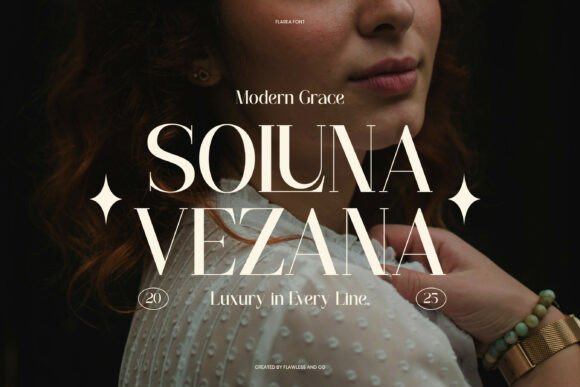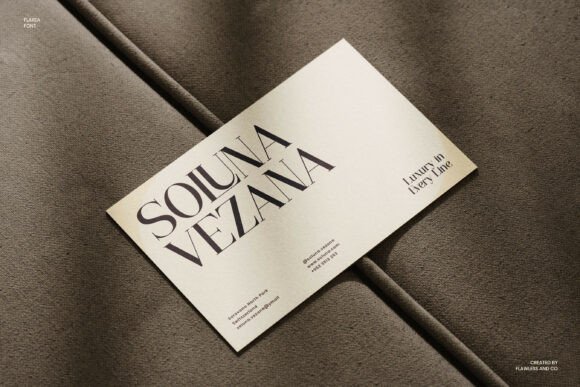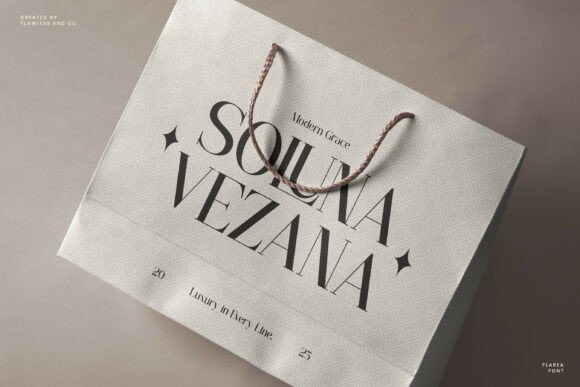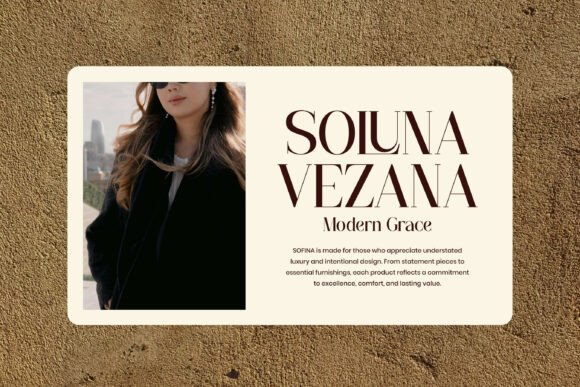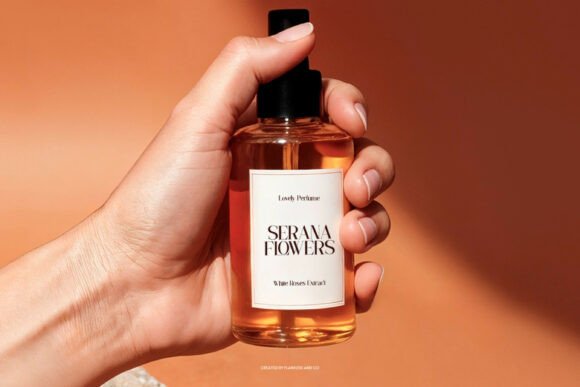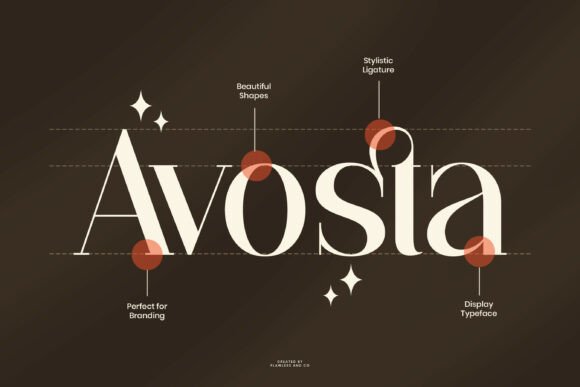
Introducing Flarea Font: The Epitome of Timeless Elegance
In the realm of typography, few fonts manage to capture the essence of sophistication and charm as effortlessly as Flarea. This beautiful serif font is meticulously crafted with graceful proportions and a timeless elegance that instantly elevates any design. Whether you’re working on a premium project or an artistic endeavor, Flarea is the perfect choice for those seeking to infuse their work with a luxurious and warm feel.
The Design Philosophy Behind Flarea
Flarea’s design is rooted in the principles of classic typography, with a modern twist that makes it distinctly contemporary. The font features smooth contrasts, refined curves, and classic letterforms that work in harmony to create a visually striking and highly readable typeface. The balanced structure of Flarea ensures that it remains elegant and refined, even at smaller sizes, making it incredibly versatile for a wide range of applications.
Key Features of Flarea Font
- Smooth Contrasts: The subtle transitions between thick and thin strokes in Flarea create a sense of fluidity and grace, adding to its luxurious appeal.
- Refined Curves: Every curve and contour in Flarea is carefully crafted to contribute to its overall sense of elegance and sophistication.
- Classic Letterforms: Drawing inspiration from traditional serif fonts, Flarea’s letterforms are both familiar and timeless, ensuring that your designs will stand the test of time.
- Balanced Structure: The even balance of Flarea’s design elements ensures that it is as easy to read as it is beautiful to look at, making it perfect for body text and headlines alike.
Applications of Flarea Font
Flarea’s versatility makes it suitable for a wide range of design projects. Here are some of the best applications for this stunning serif font:
- Branding and Logo Design: Use Flarea to create a lasting impression with your brand identity. Its elegant and sophisticated design makes it perfect for luxury brands and high-end products.
- Print Design: Whether you’re working on a magazine, brochure, or book, Flarea brings a touch of class and sophistication to your print materials.
- Digital Media: From website headers to social media graphics, Flarea’s clean and readable design ensures that your message is conveyed with style and elegance.
- Packaging Design: Add a touch of luxury to your product packaging with Flarea. Its timeless appeal ensures that your designs will stand out on store shelves.
Tips for Using Flarea Effectively
To get the most out of Flarea, consider the following tips:
- Pair with Sans-Serif Fonts: For a striking contrast, pair Flarea with a clean sans-serif font for body text or headings.
- Experiment with Sizes: Don’t be afraid to experiment with different sizes to find the perfect balance for your design.
- Pay Attention to Line Spacing: Ensure that your text is easy to read by paying close attention to line spacing, especially in body text.
Flarea font is a masterclass in typographic design, offering a perfect blend of elegance, sophistication, and readability. Whether you’re a designer looking to elevate your brand’s identity or a craftsperson seeking to add a touch of luxury to your projects, Flarea is an excellent choice. Its timeless appeal and versatile design ensure that it will remain a valuable asset in your design toolkit for years to come.